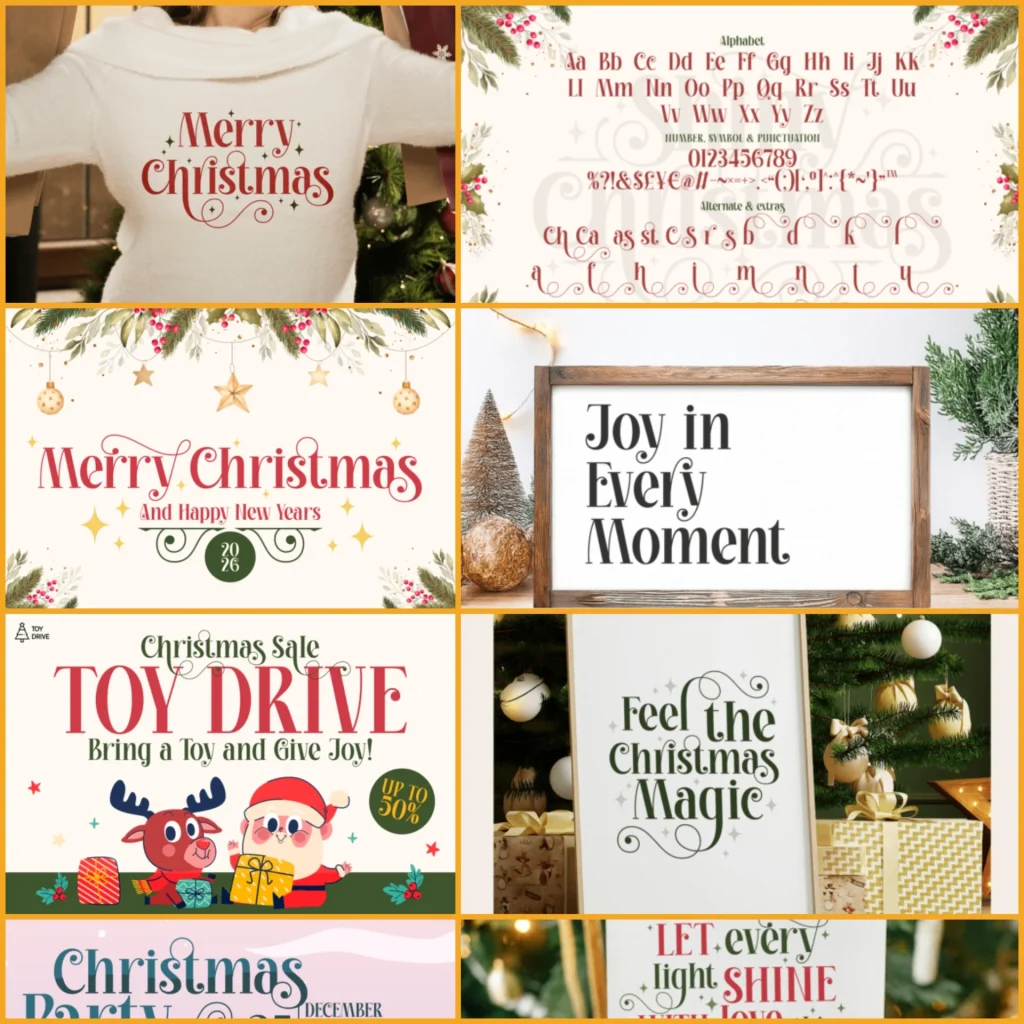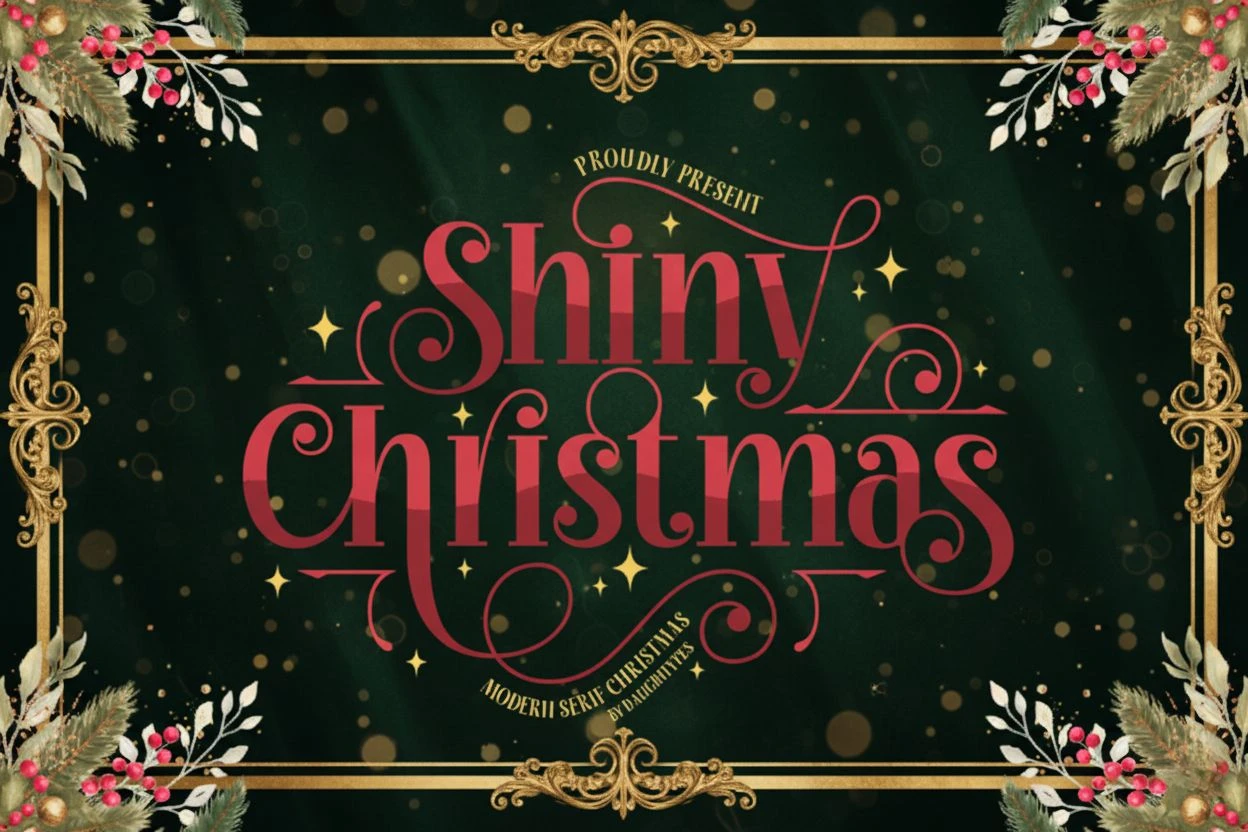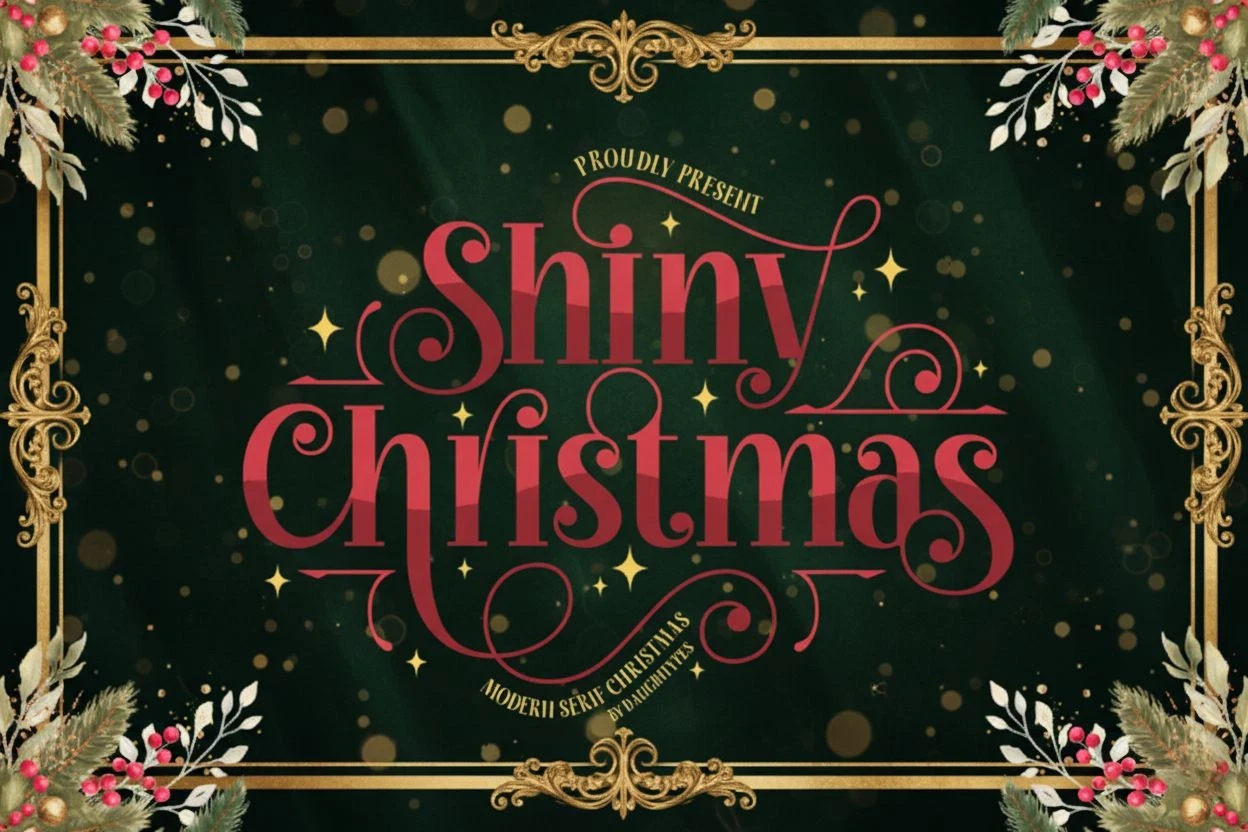
Bring the sparkle of the season to your designs with Shiny Christmas Font, a luxurious modern serif typeface made for festive projects. With graceful swashes, stylish ligatures, and elegant curves, this font radiates warmth and sophistication — ideal for Christmas cards, invitations, branding, packaging, posters, social media graphics, and more.
Designed to capture the magic of Christmas, Shiny Christmas Font pairs beautifully with both minimalist and traditional layouts, adding a festive glow to every word. It’s perfect for designers, crafters, and businesses looking to create joyful holiday materials that feel both professional and heartwarming.